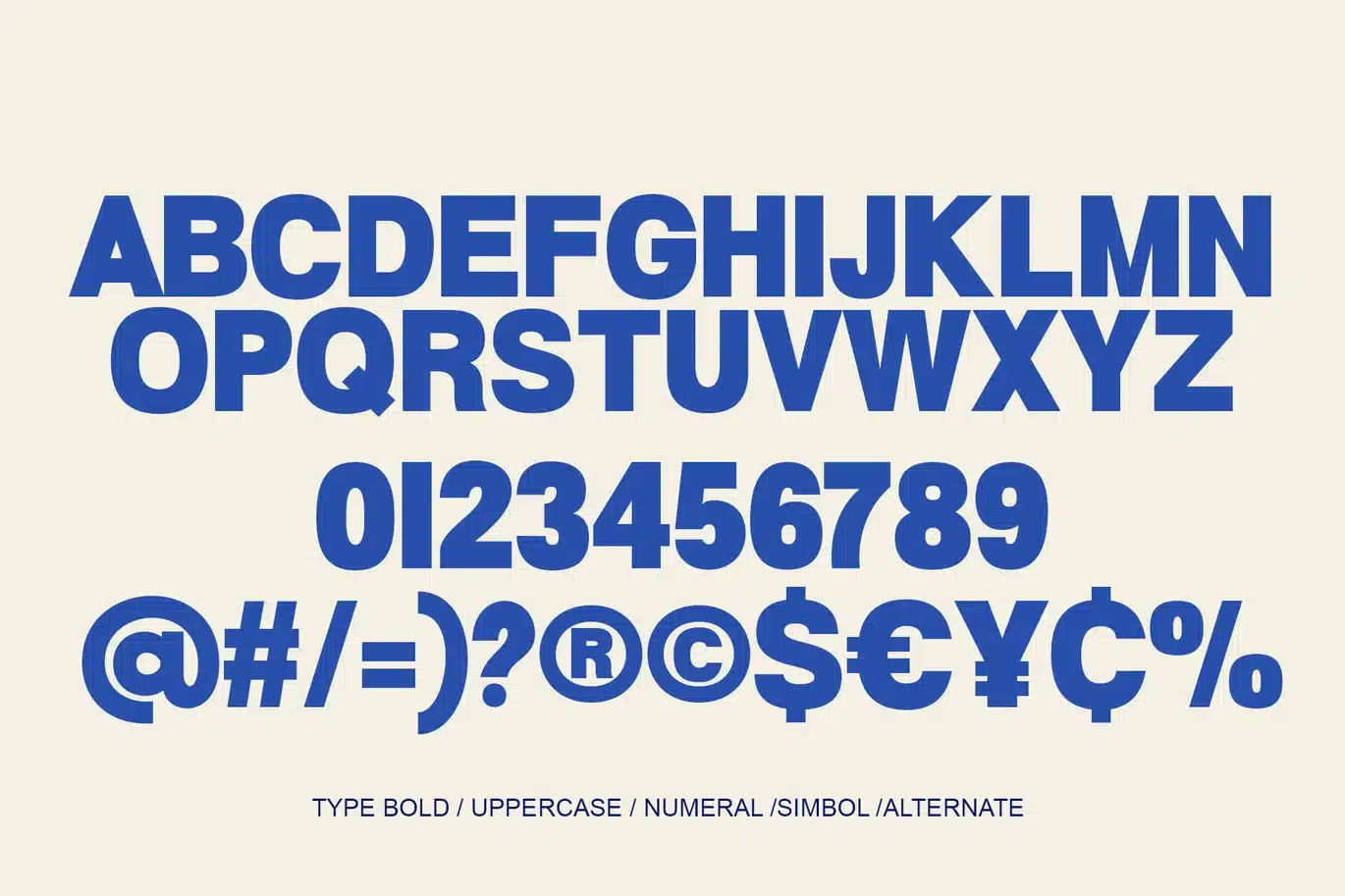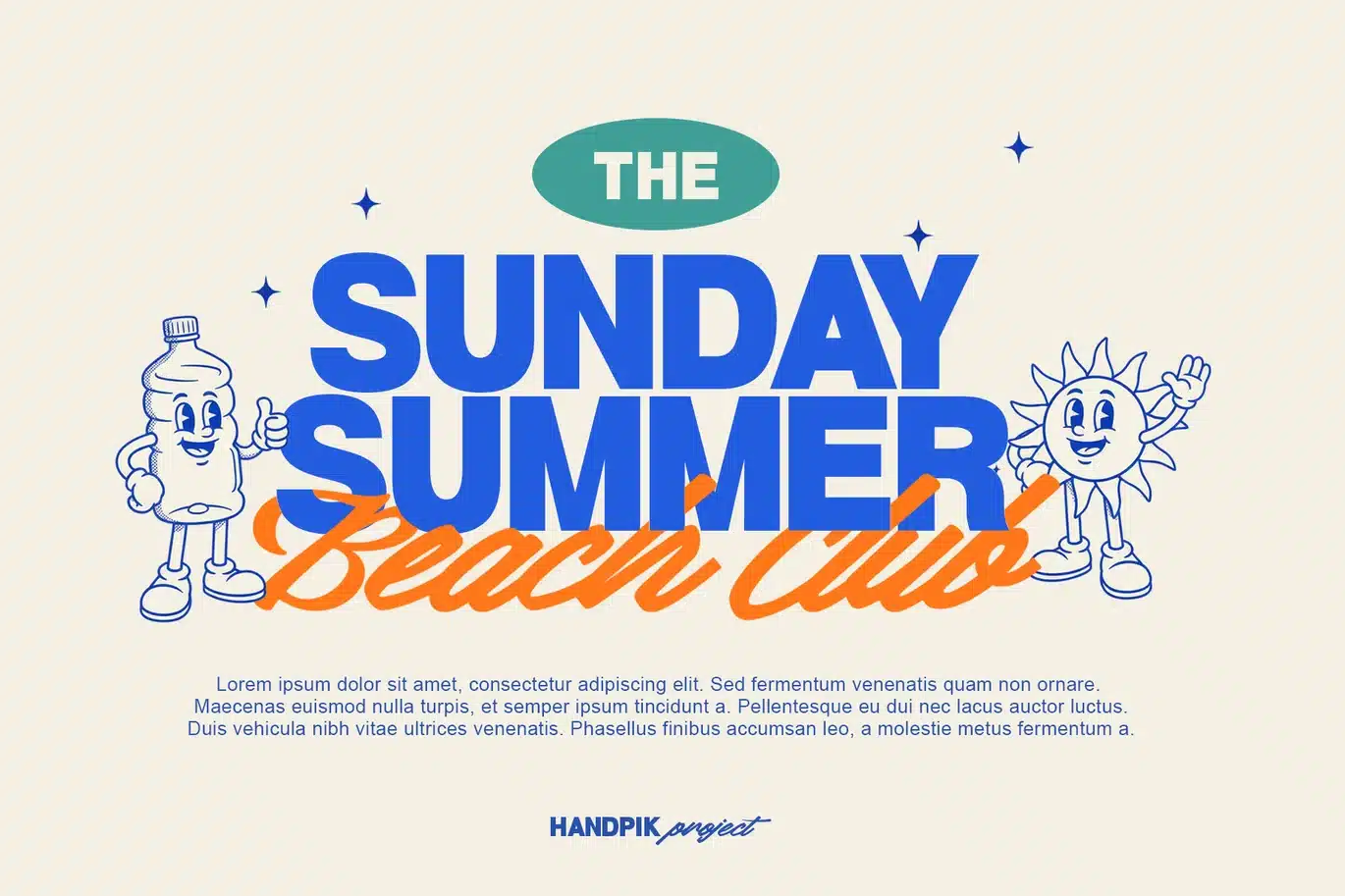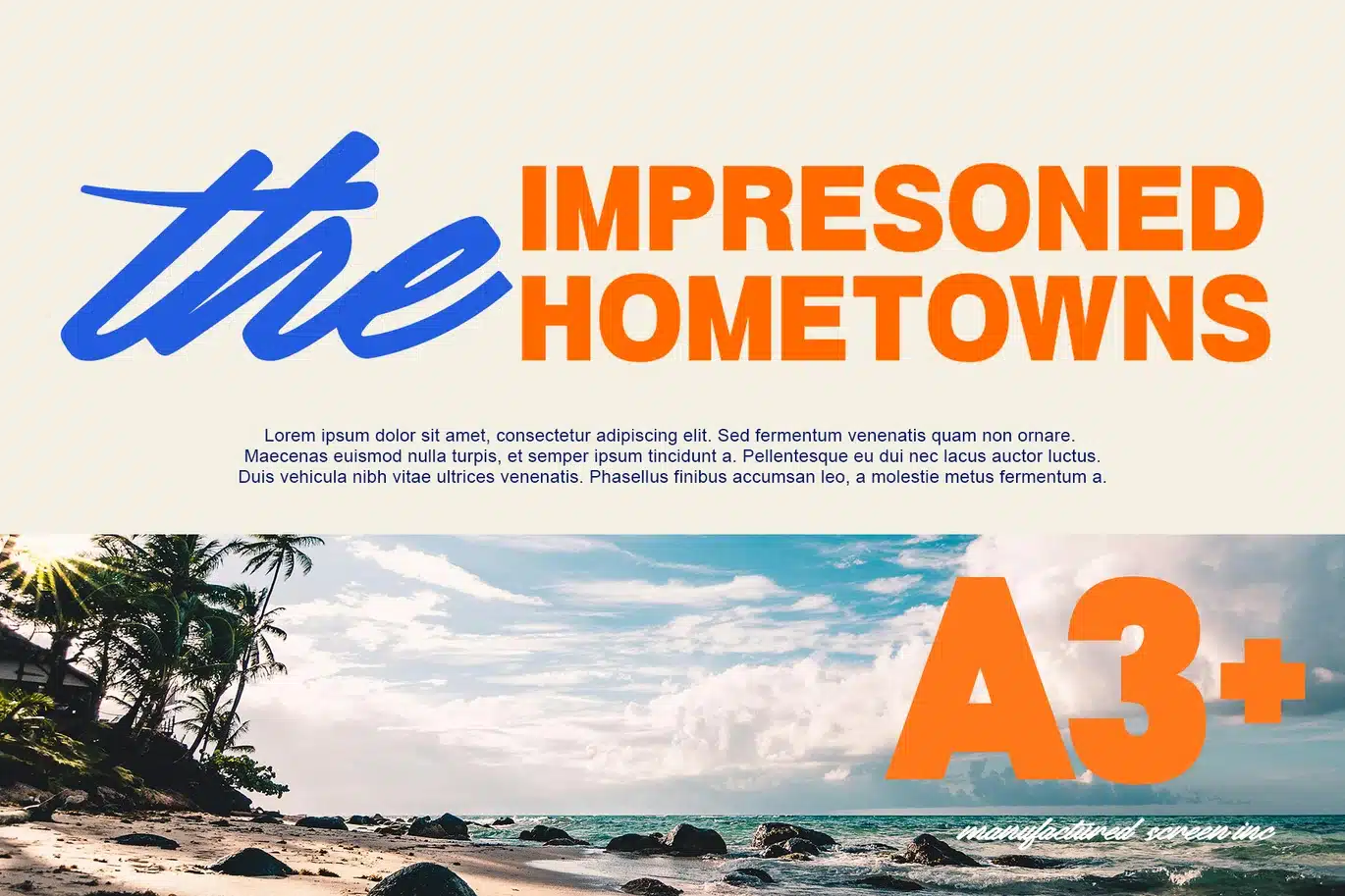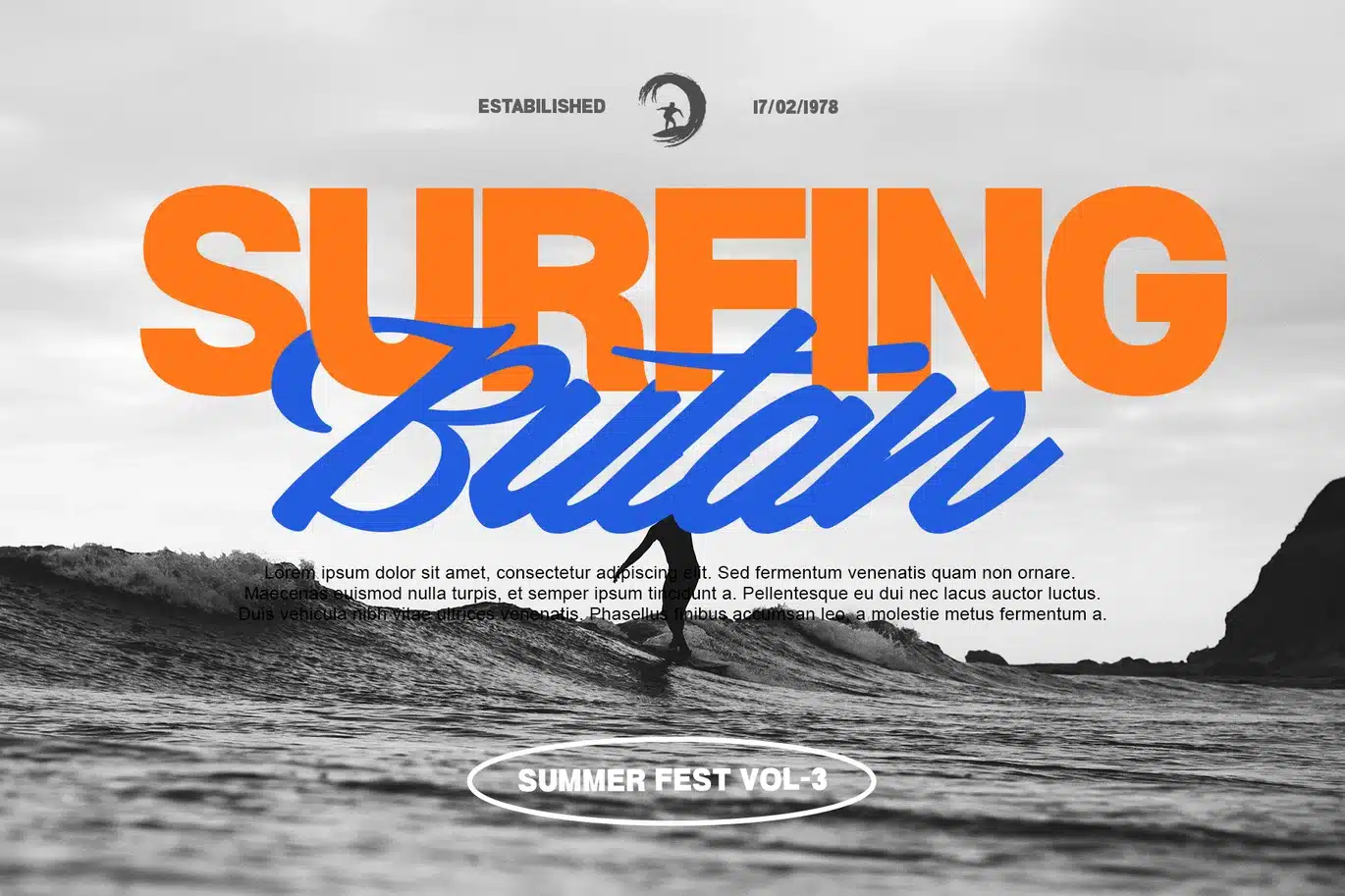
Money Display Font
Money Display is a dual font combination that combines a handwritten script style with a bold sans-serif font, creating a strong and dynamic visual contrast. This combination results in a modern, expressive, and characterful look.
The script features fine strokes with a free-flowing flow, resembling elegant and confident handwriting. Long curves and sweeping strokes create a luxurious, stylish, and slightly flamboyant impression—perfect for instantly attracting attention.
Conversely, the sans-serif font used as a pairing is bold, solid, and stable. Its bold shapes with high legibility provide a strong foundation to balance the more decorative script elements.
Money Display's uniqueness also lies in its use of optional ligatures (discretionary ligatures) that enrich the variety of letterforms, giving the text a more customized and exclusive feel.
Overall, this font is highly suitable for display needs such as branding, posters, covers, social media, and even lifestyle, fashion, or luxury-themed designs—combining elegance, modernity, and eye-catchingness in one visual package.